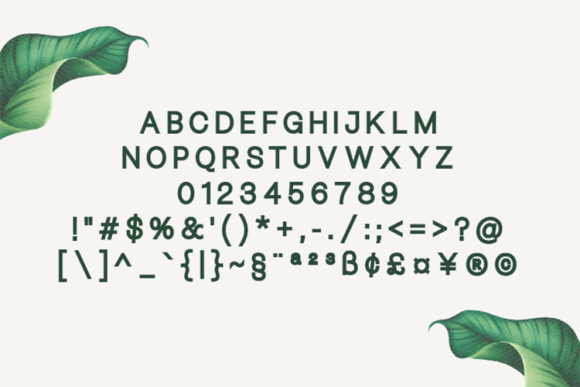
The Perfect Typography for Your Next Big Project
As a designer, there’s nothing quite like the thrill of a blank canvas, waiting for the perfect font to bring your vision to life. You stare at your screen, scrolling through font libraries, searching for that one special typeface that will make your project truly stand out. And then, it happens – you stumble upon Bellezza Extra Black Font, a modern sans serif with a geometric touch that perfectly captures the essence of your creative vision.
Bellezza Extra Black Font is a game-changer for graphic designers, offering a versatile and stylish solution for display purposes. Its clean lines and bold typography make it an ideal choice for any project that demands attention and sophistication. With Bellezza Extra Black Font, you can elevate your designs and leave a lasting impression on your audience.
Whether you’re working on a branding campaign, a website, or a social media post, Bellezza Extra Black Font is an invaluable asset in your design toolkit. Its unique blend of modernity and elegance makes it a valuable addition to any designer’s arsenal, and we’re excited to share its secrets with you.
Bellezza Extra Black Font Key Features
- Unique Characteristics: This font boasts a distinctive, elegant design with bold lines and a sleek aesthetic, making it perfect for luxury brands, high-end products, and sophisticated designs.
- Weight and Style: Bellezza Extra Black Font comes in a single weight, Extra Black, offering a dramatic and striking look that adds depth and sophistication to any design.
Bellezza Extra Black Font Review
Overall, I’m quite impressed with Bellezza Extra Black Font. It’s a high-end sans-serif font that exudes luxury and sophistication. The clean lines and sharp edges make it perfect for creating visually stunning designs ✨.
- Unique design aesthetic that sets it apart from other sans-serif fonts ✨
- Perfect for luxury brands, high-end products, and fashion designs ✨
- Works well for both digital and print designs ✨
- May be too bold for some designs ⚠️
- Not ideal for body text, as it can be overwhelming ⚠️
- May require adjustments to font size and line height to get it just right ⚠️
Overall, I think Bellezza Extra Black Font is a great choice for designers who want to create high-end, luxurious designs. While it may have some limitations, the unique design aesthetic and versatility make it a valuable addition to any design library.
Tips for Getting the Most Out of Bellezza Extra Black
Use Bellezza Extra Black for headings and titles to add a touch of elegance to your design.
Combine Bellezza Extra Black with other fonts to create a unique and eye-catching typography.
Bellezza Extra Black is perfect for:
Branding and marketing materials.
Editorial and publishing projects.